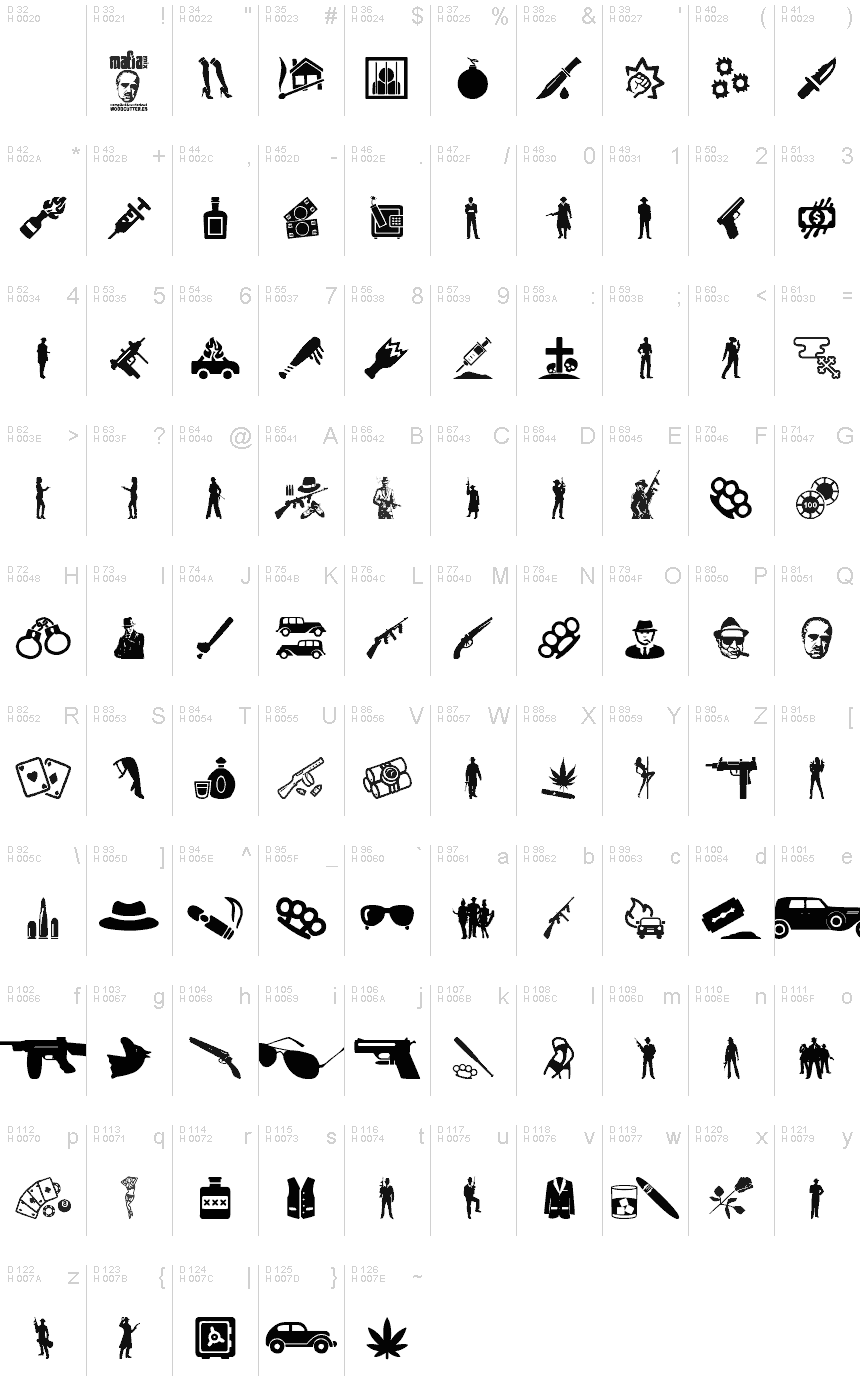
Mafia Mix
Mafia Mix by Woodcutter Manero is a captivating dingbat font that evokes a sense of intrigue and edginess. Crafted with meticulous attention to detail, this font features a bold, distinctive style that immediately commands attention. From the sleek lines of the firearms to the striking contrast of the silhouettes, every element within Mafia Mix exudes a powerful and commanding presence.
This versatile font presents a wealth of opportunities for designers seeking to create impactful visuals. Whether curating marketing materials, designing packaging, or crafting compelling editorial layouts, Mafia Mix's unique character lends itself seamlessly to a wide range of applications. Its ability to convey a sense of danger and excitement makes it an ideal choice for projects that aim to captivate and intrigue the audience.